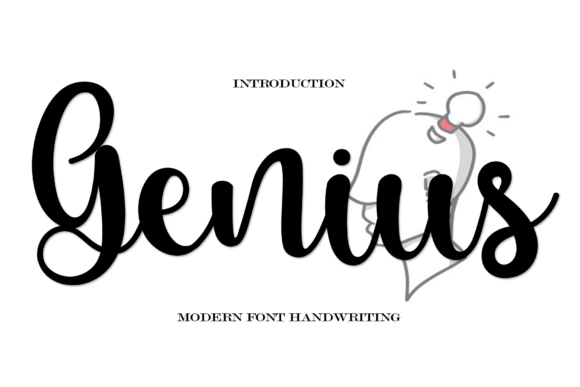
Unleash your creativity with the Genius Font, an enchanting script font family that exudes charm and sophistication. As an e-commerce SEO expert, it gives me immense pleasure to introduce you to this extraordinary font that epitomizes elegance and uniqueness.
With its graceful strokes and sweeping curves, Genius Font adds a touch of magic to any design project. It's the perfect choice for crafting heartfelt wedding invitations, extending gratitude with thank-you cards, or creating heartfelt quotes that touch the soul. Its versatility extends to greeting cards, logos, and business cards, adding a personal touch that leaves a lasting impression.
Whether you're a seasoned designer or just starting your creative journey, Genius Font is your perfect companion. It effortlessly transforms your words into captivating visual masterpieces, elevating your designs and captivating your audience.
Immerse yourself in the world of Genius Font and discover endless possibilities. Let your imagination run wild as you create stunning wedding invitations that capture the essence of your special day. Design thank-you cards that express your gratitude with a touch of elegance. Craft heartfelt quotes that resonate with your audience, leaving them inspired and uplifted.
With Genius Font, your designs transcend the ordinary and take on a life of their own. Each letter, carefully crafted with precision and artistry, dances across the page, creating a visual symphony that captivates the senses. Its versatility allows you to experiment with different design styles, from modern and edgy to classic and timeless.
As an e-commerce SEO expert, I highly recommend the Genius Font to anyone seeking a font that combines beauty and functionality. It's a rare gem that will take your design projects to new heights. Don't miss this opportunity to elevate your designs and captivate your audience with the breathtaking Genius Font.